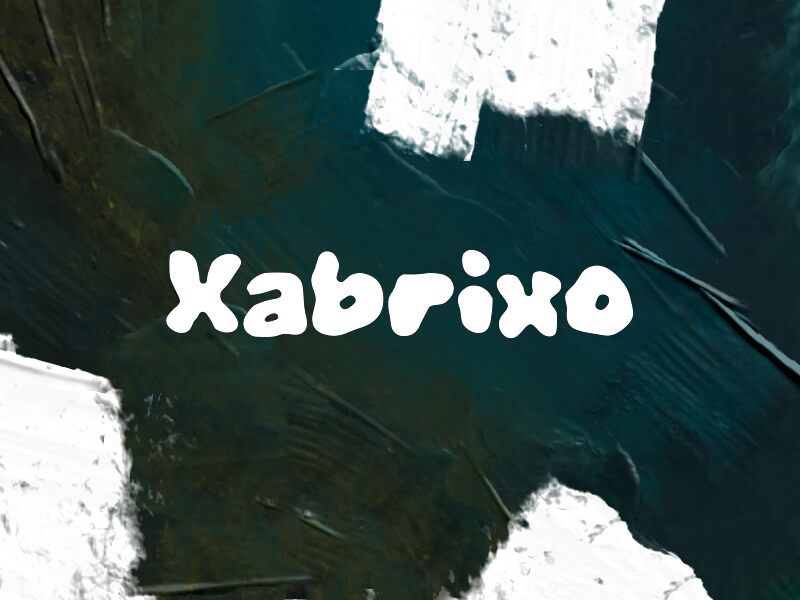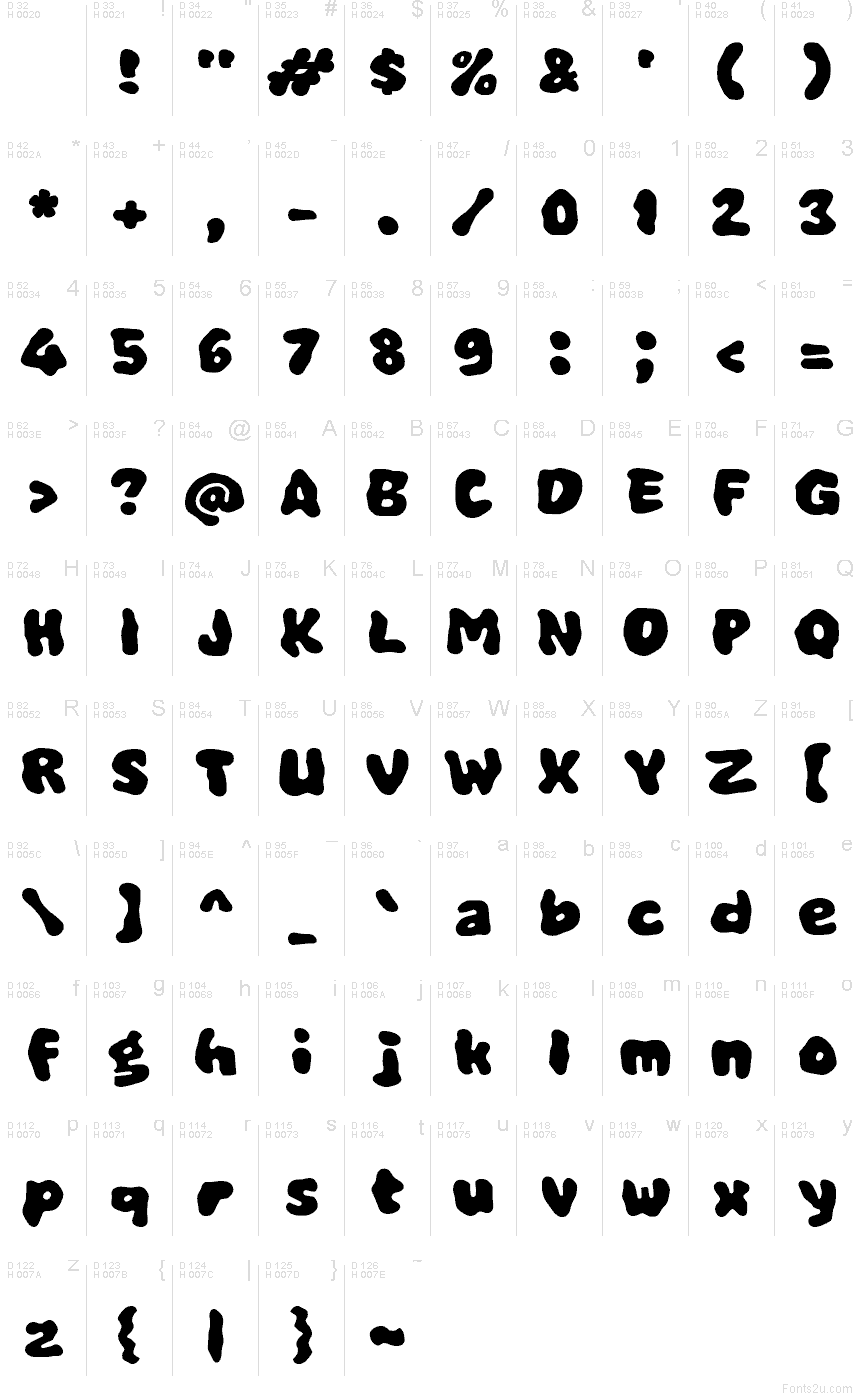
Xabrixo
Xabrixo font by wepfont.com is a free cartoon display typeface with big, inky letterforms that look like they’ve been squeezed out of a marker. Each character feels a little squishy and uneven in the best way, giving your words a hand-drawn, bouncy energy that jumps off the page or screen. The chunky weight and tight rhythm keep everything loud and legible, even when colors or backgrounds get wild.
Using Xabrixo, you can crank up the fun on kids’ book covers, game titles, candy or snack packaging, YouTube thumbnails, stickers, and birthday invitations. This free font thrives at larger sizes where its blobby curves and playful silhouettes can really show. Pair it with a clean, light sans serif for supporting text to keep the message clear while Xabrixo brings the character.